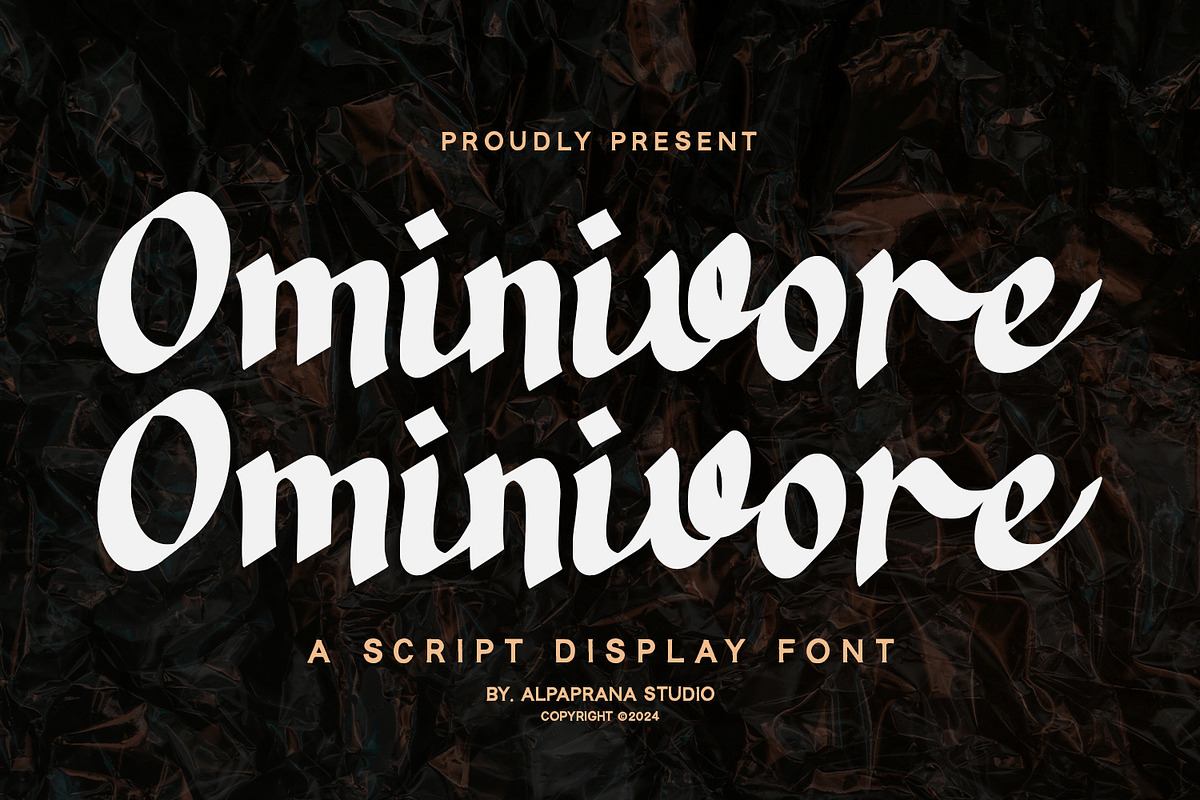
Omnivore – Display Font Free Download is a bold and modern typeface designed to dominate attention in any visual space. With strong lines, sharp angles, and a slightly futuristic vibe, Omnivore is perfect for posters, branding, video game titles, packaging, and edgy editorial layouts.
This display font delivers impact with every letter—ideal for headlines and logos that need to stand out. Whether you're crafting a tech brand, a music festival flyer, or a streetwear label, Omnivore brings confidence, structure, and a dynamic visual presence.